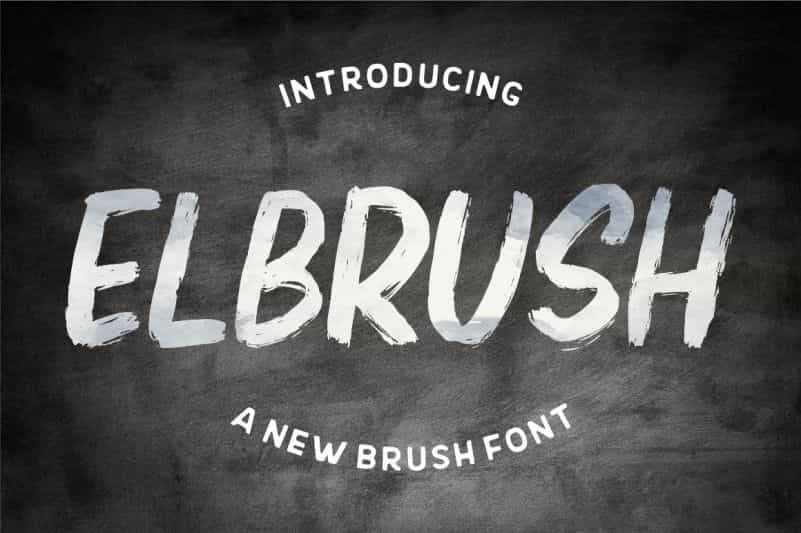
Elbrush is a brush script font which is made by hand. It is a call route handwriting with energetic brush strokes. It has a vibe to it and a sort of urban street style that when used in moderation is difficult to dismiss.